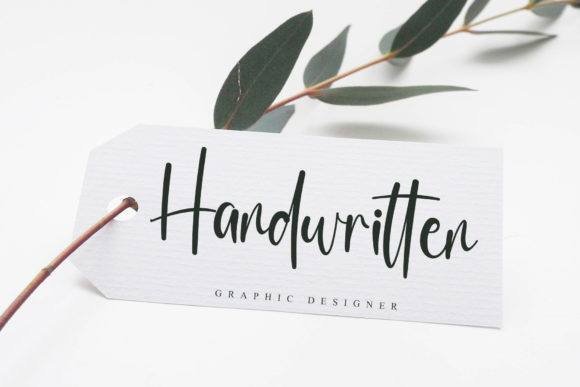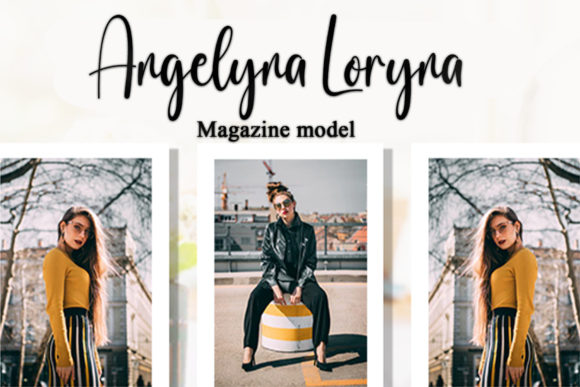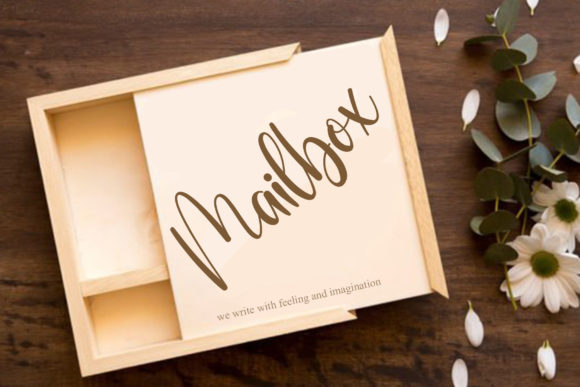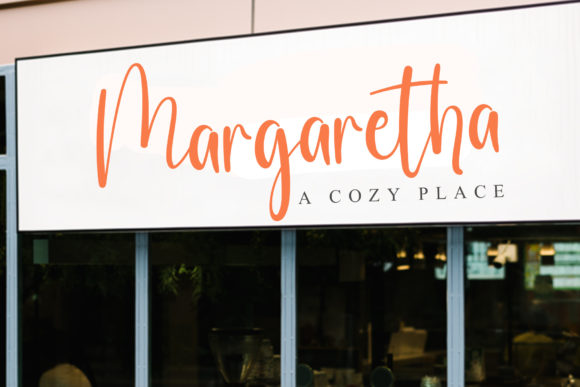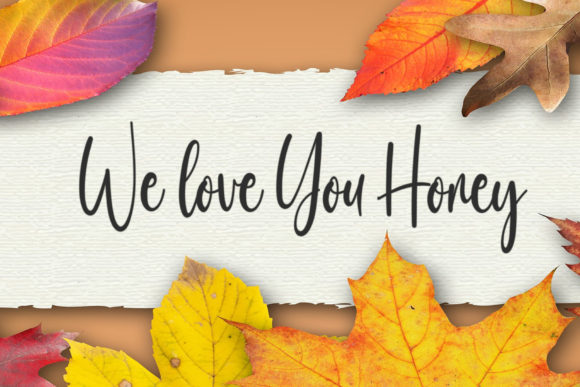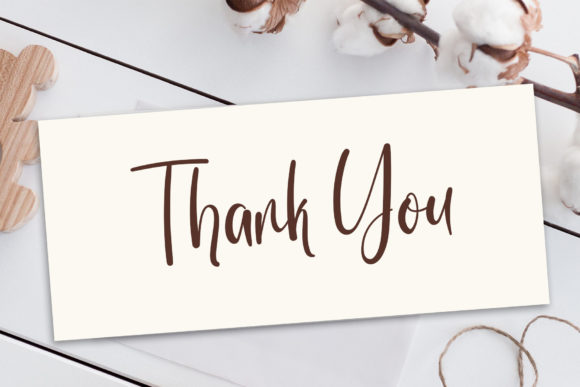
Husband Font
About Husband Font
Introducing Husband, a gorgeous handwritten font that promises to make your work stand out with its elegant and curvy lines. Perfect for a variety of applications, this font adds a touch of sophistication to product packaging, branding projects, magazine covers, social media, weddings, or any instance where you want to express words above a captivating background.
The elegance of Husband shines through its carefully crafted lines, creating a visual experience that is both refined and captivating. Picture this font gracing product packaging, elevating the presence of your brand on shelves. Envision it enhancing the covers of magazines, drawing attention with its sophisticated flair. Whether used in social media graphics or wedding materials, Husband becomes a versatile tool for adding a touch of timeless beauty to your designs.
The curvy lines of Husband contribute to its overall elegance, making it a standout choice for projects that demand a handwritten font with a sense of sophistication. Its ability to convey both style and grace ensures that it complements a wide range of creative endeavors.
Embrace Husband as the font that brings an extra layer of elegance to your work. Let its gorgeous, handwritten charm elevate your product packaging, branding projects, magazine covers, social media graphics, weddings, and more. Allow Husband to be the expressive and sophisticated touch that enhances your creative endeavors.